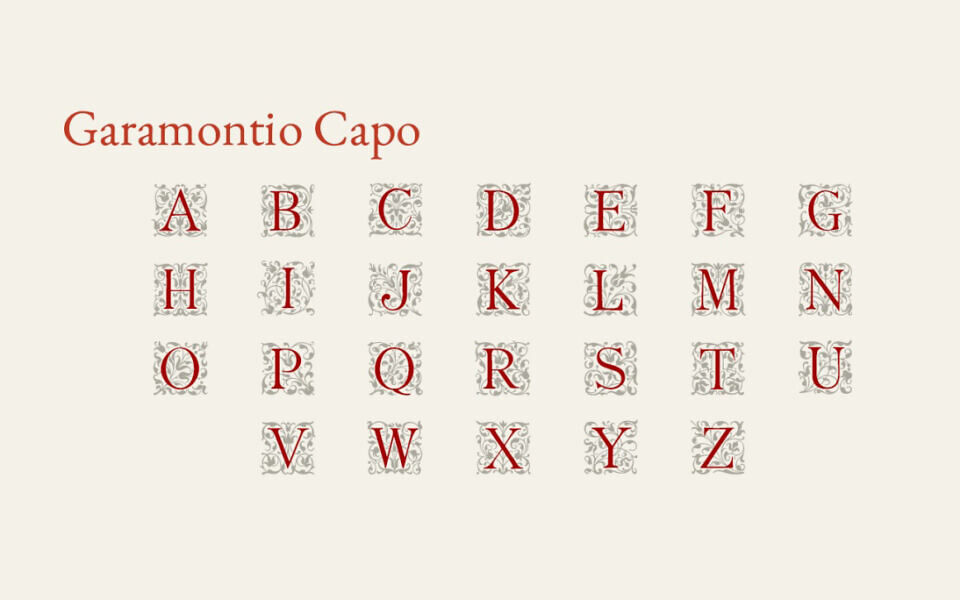
Garamontio Capo is a decorative drop cap font inspired by Renaissance initials from Ludwig Petzendorfer’s 1889 Schriften Atlas. Designed by Michele Casanova, it revives ornate floral engravings with modern refinements to letterforms like G, M, and R.
The font features stylistic sets for bicolor layering and is licensed under the Open Font License. Ideal for illuminated manuscripts, editorial design, or typographic experiments, it complements the Garamontio serif family.